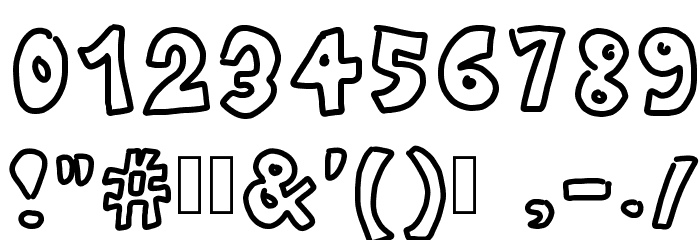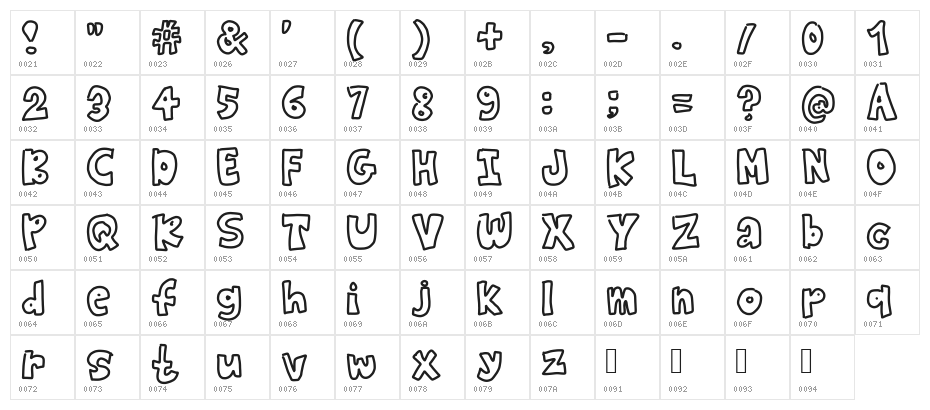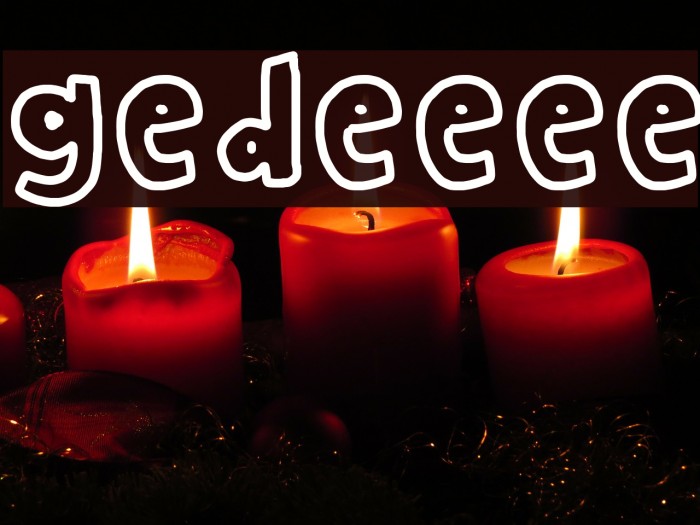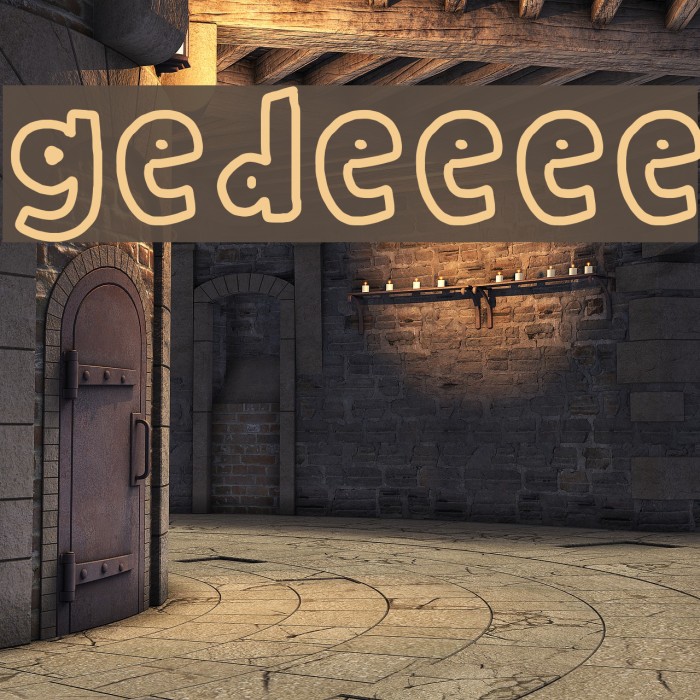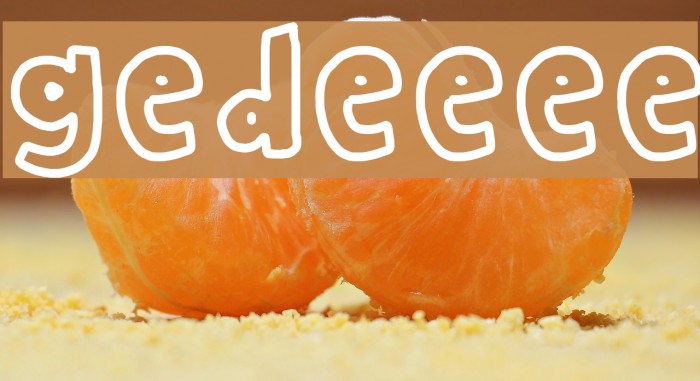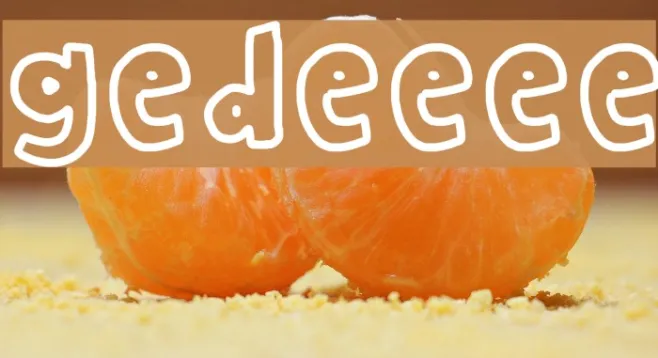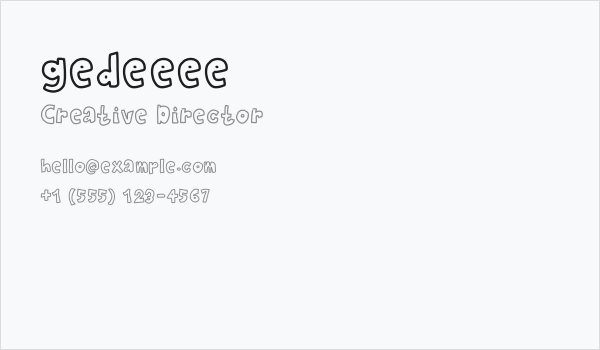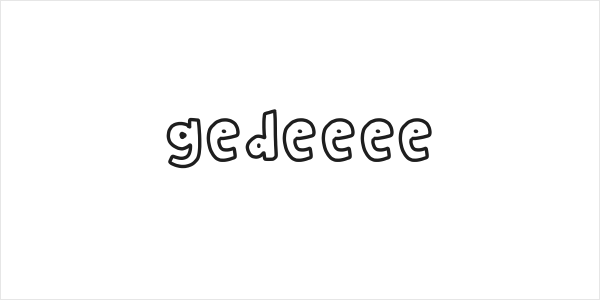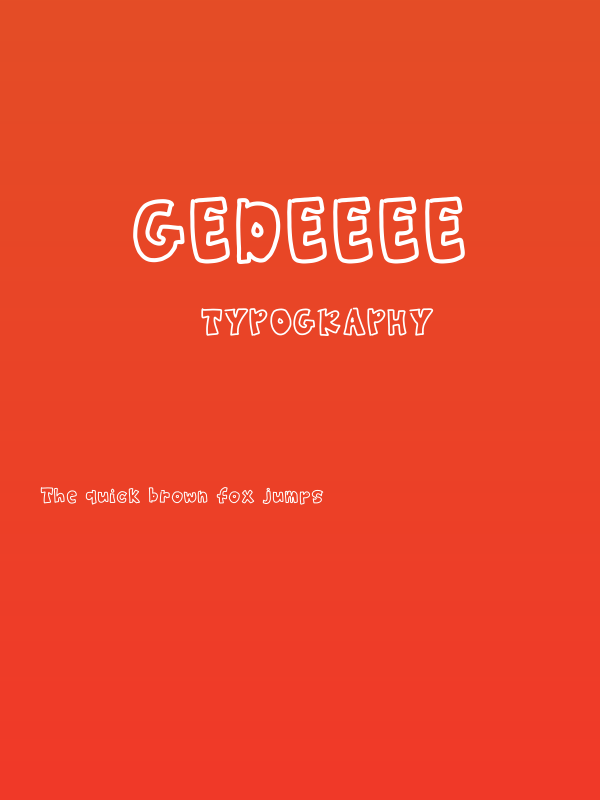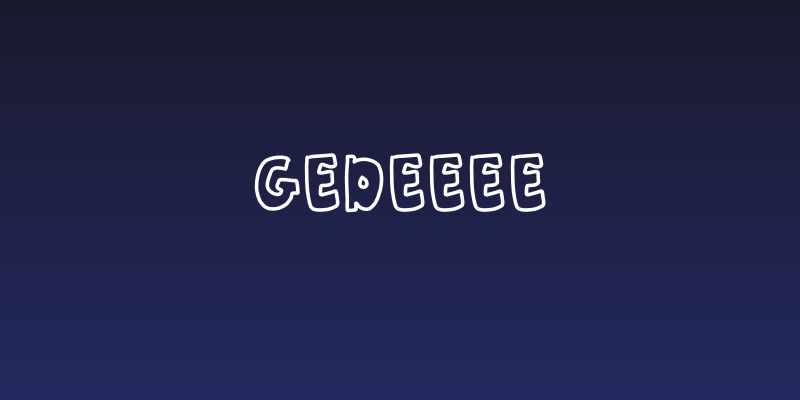
gedeeee Font
This playful and whimsical font features bold, cartoon-like characters with a hand-drawn appearance. The letters are outlined, giving them a three-dimensional effect, and they exhibit a slightly irregular shape that adds to their charm. The uppercase and lowercase letters maintain a consistent style, with rounded edges and a friendly demeanor. Numbers and special characters follow the same design, ensuring a cohesive look across all elements. This font is perfect for projects that require a fun and informal touch, such as children's books, comic strips, or playful branding.
| Proposed Projects | Ideal for children's books, comic strips, playful branding, and informal designs. |